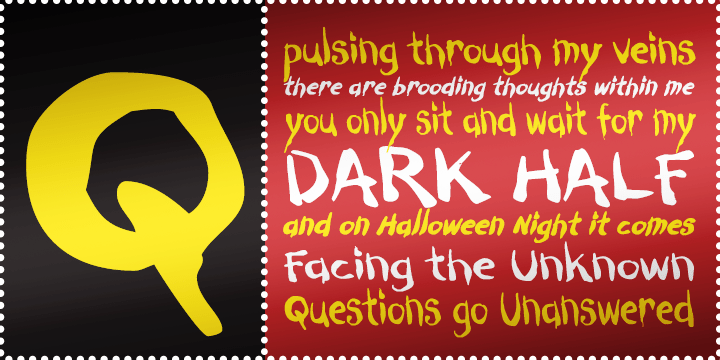
Dark Half BTN
Dark Half BTN is a drippy brush-lettered display family built for horror, Halloween, and all things eerie. Its wet, uneven strokes create a dark and unsettling tone that feels perfect for haunted themes, spooky posters, event flyers, seasonal packaging, game graphics, and horror-inspired branding. The family includes standard, condensed, and extended widths along with bold and oblique companions, giving designers a range of options for building creepy headlines with extra impact. Dark Half BTN brings a grimy hand-painted feel to display typography, making it a strong choice whenever a design calls for menace, dread, or theatrical fright.